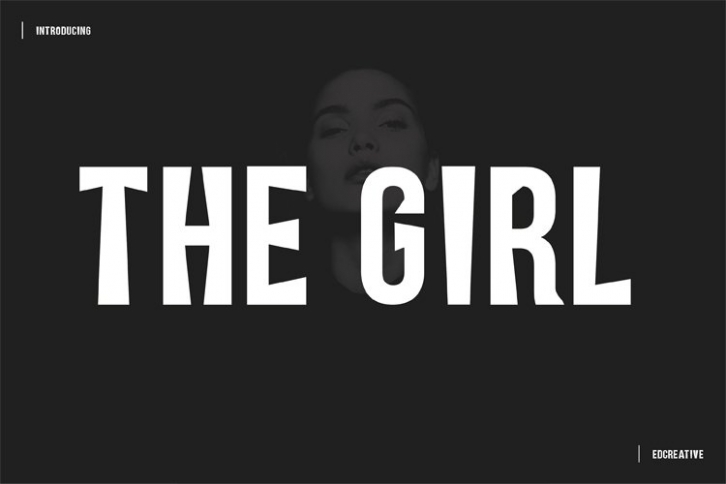
THEGIRL is a great font that was designed by Edcreative. Imagine the amount of combinations you can create using this font! The archive is 5.84 MB and it was released on November 16, 2020. THEGIRL looks beautiful on wedding invitations, greeting cards, logos, posters, labels, t-shirt designs, logos, business cards and is perfect for use in ink or watercolor works, fashion, magazines, packaging and food menus, children's books and more!